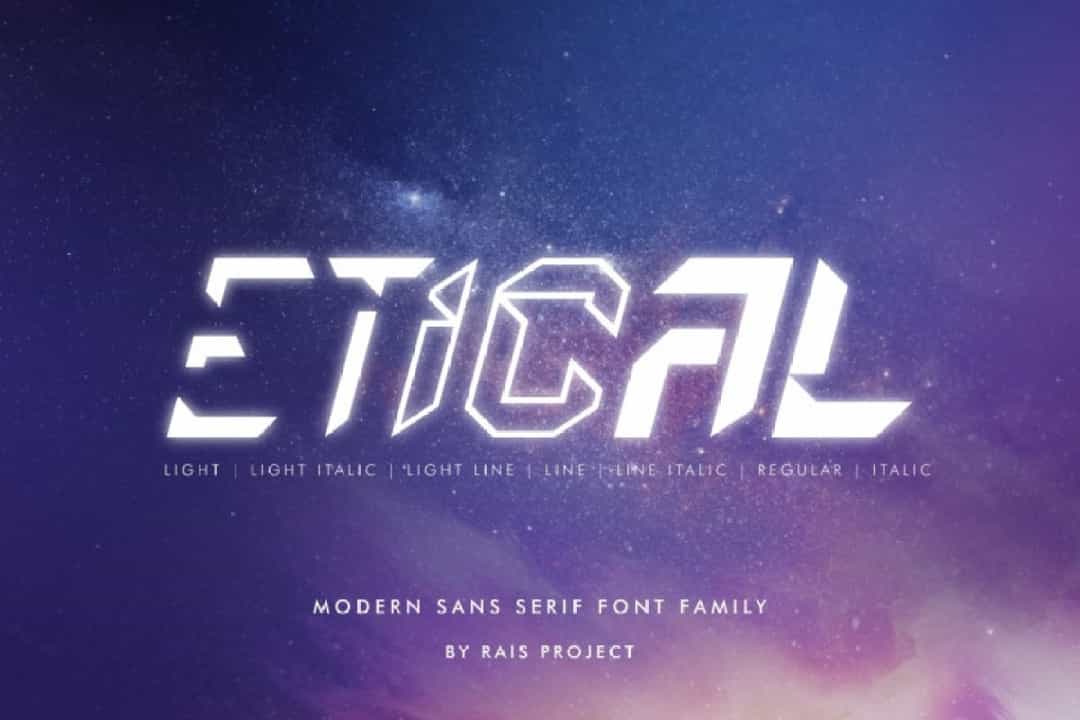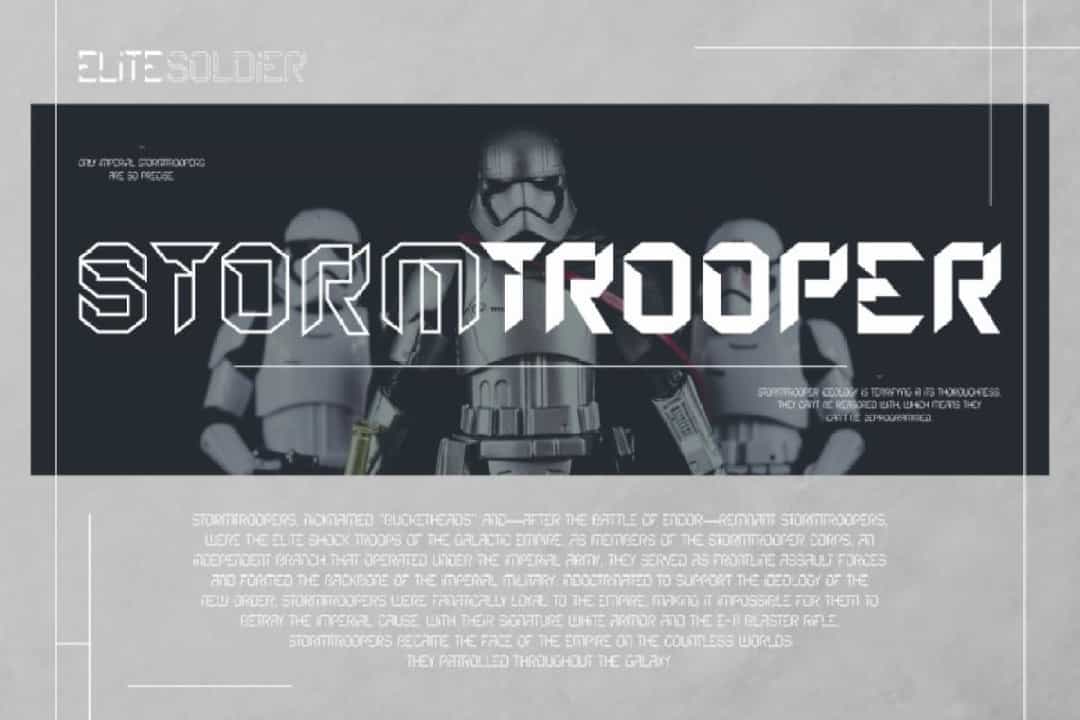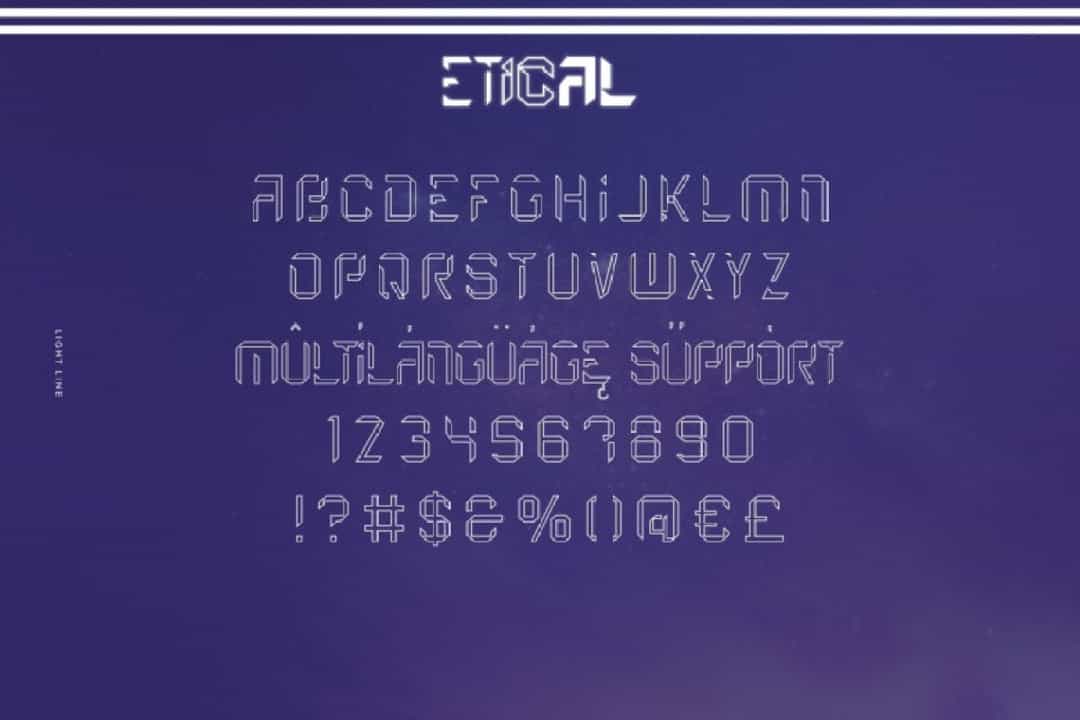
Ethical font is a military display typeface designed to convey a particular style to the projects like headlines, promotions and event branding, advertising campaigns, magazines, invitations, signage stationery social media posts labels as well as any other projects which need distinctive design accents such as social media posts. These are the Automotive, Apps, Cosmetic, Beauty Technology Game Magazine Music Sport startup companies who can benefit from using this font design in their projects.